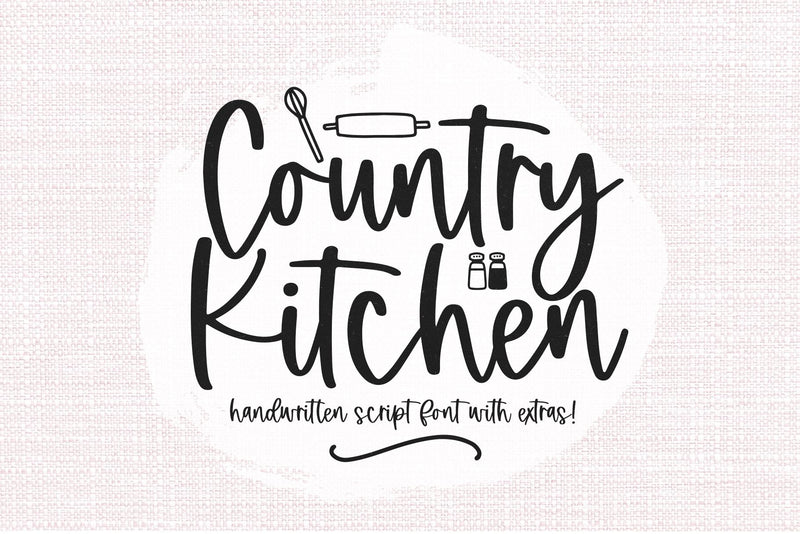
Country Kitchen - Farmhouse Script Font with Doodles
Country Kitchen is a handwritten script font perfect for all of your farmhouse designs!
Includes a doodle font with 52 hand-drawn country doodles! Simply type with any letter A-Z a-z or number 0-9 to access the country style doodles!